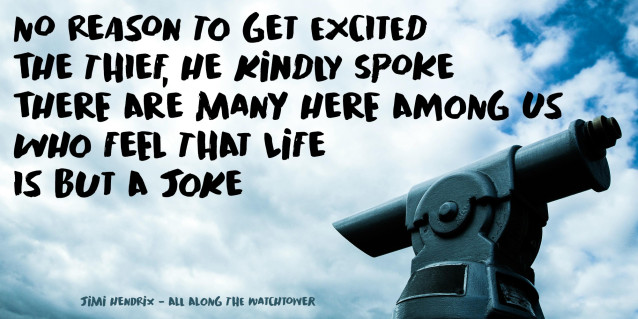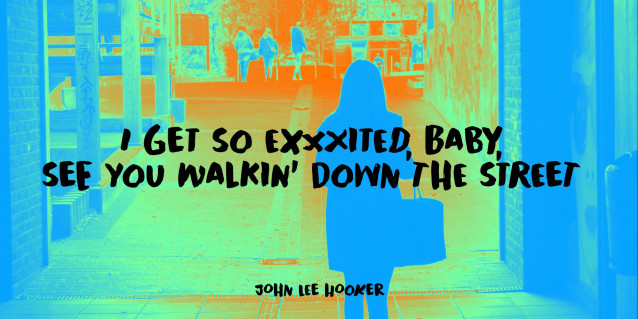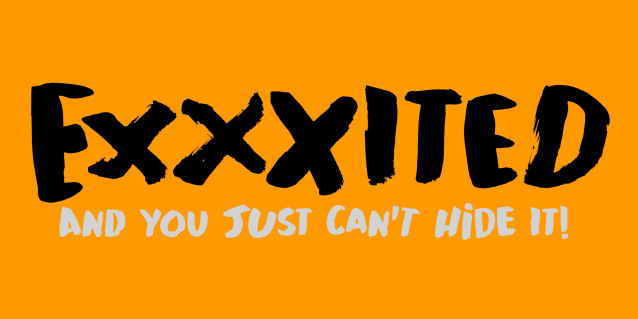
Exxxited Brush Font
Exxxited Brush Font inspired by brush lettering-style typography. This font is perfect for a design that makes it more attractive and playful. It was made with a very good level of aesthetics, making this font suitable for a book cover, poster, packaging, merchandise, logotype, and much more.